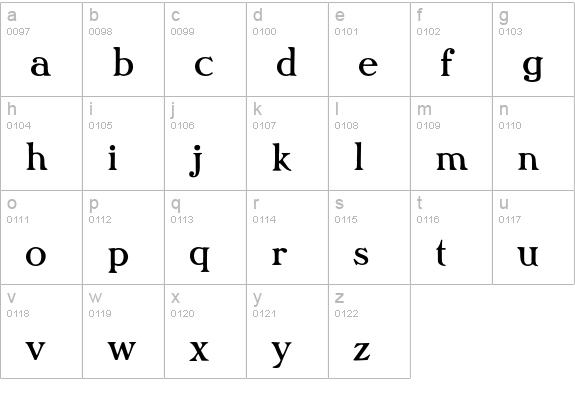
P22PanAm-Regular Font Details
P22PanAm-Regular is the standard, neutral variant in the P22PanAm typeface family \xE2\x80\x94 well suited to general body text, paragraphs, and standard typographic work.
P22PanAm-Regular is a sleek and sophisticated font that exudes elegance and professionalism. With its clean lines and timeless design, this font is perfect for any project that requires a touch of class. Whether you're designing a logo, creating a website, or crafting a marketing campaign, P22PanAm-Regular will elevate your work to the next level. This font showcases a perfect balance between modernity and tradition. Its contemporary letterforms are expertly crafted, while still paying homage to classic typography. The result is a font that is both fresh and familiar, making it versatile for a wide range of applications. P22PanAm-Regular is a font that is truly a pleasure to work with. Its legibility and readability make it ideal for both print and digital media. No matter the size or resolution, this font will retain its clarity and impact, ensuring that your message is communicated effectively. One of the best things about P22PanAm-Regular is that it is freely available to download at FontsMarket.com. This means that you can access this exceptional font without any cost. Whether you're a professional designer or a hobbyist, having access to high-quality fonts can greatly enhance your creative projects. FontsMarket.com is a trusted source for fonts, and they offer a wide range of options to suit every style and need. In conclusion, P22PanAm-Regular is a font that combines style, versatility, and accessibility. Its timeless design and freely available download make it an excellent choice for designers of all levels. Elevate your work and make a lasting impression with P22PanAm-Regular.